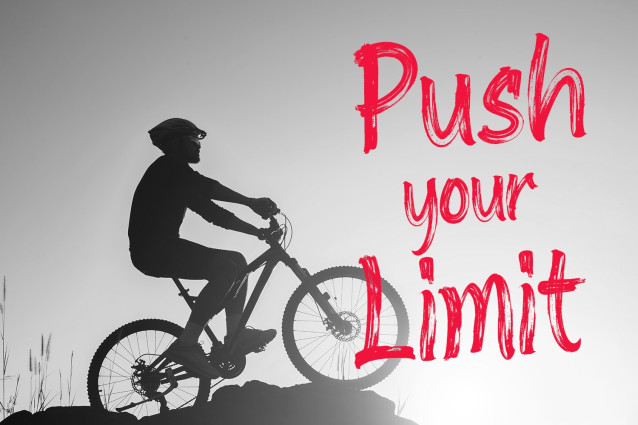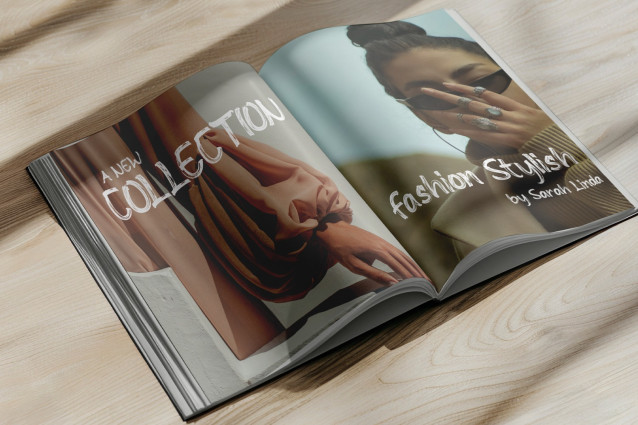
Gravitasy Brush Font
Gravitasy Brush Font, a raw and expressive typeface designed for those who dare to stand out. With its hand-painted strokes and gritty textures, this font brings an energetic and rebellious feel, perfect for branding, posters, sportswear, and dynamic editorial designs. Gravitasy captures the essence of power and motion, making every word look alive and full of personality. Equipped with multilingual support, ligatures, and a complete set of uppercase, lowercase, numbers, and punctuation, this font is ready to elevate your next bold project. Whether you’re designing an edgy logo or a striking campaign, Gravitasy ensures your message makes a lasting impact.